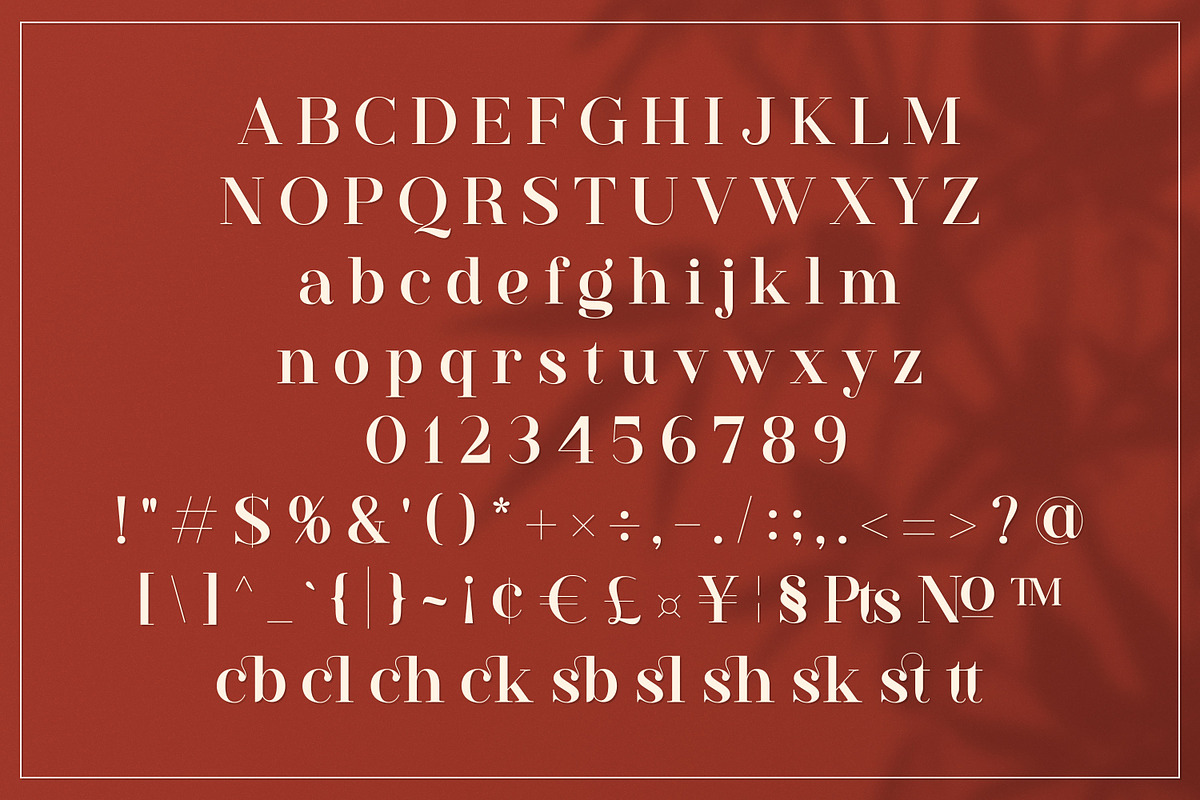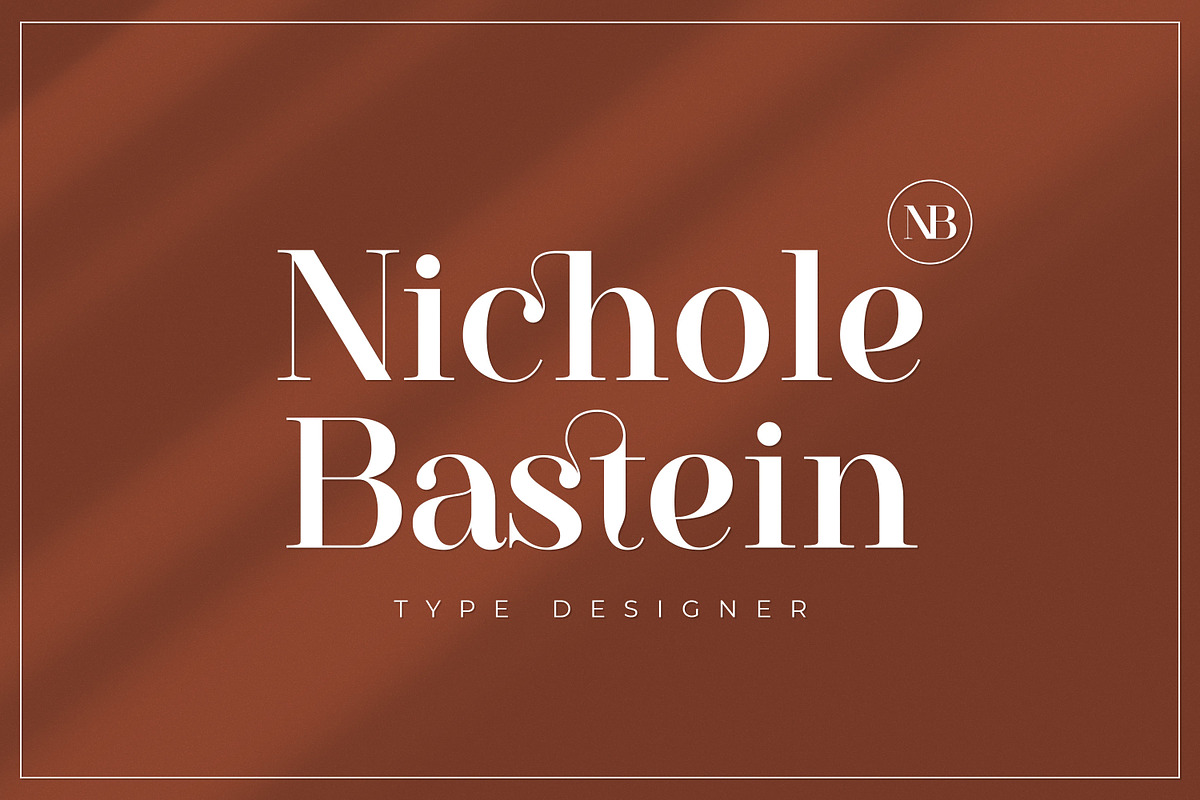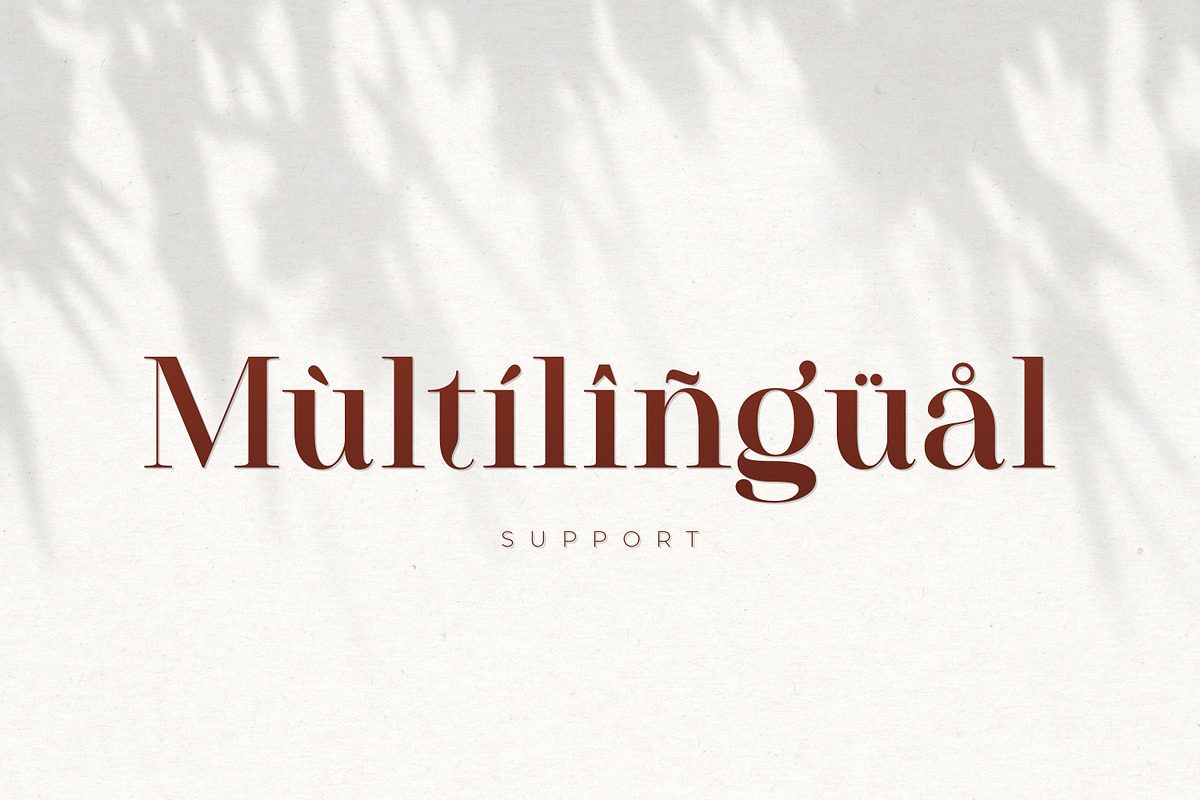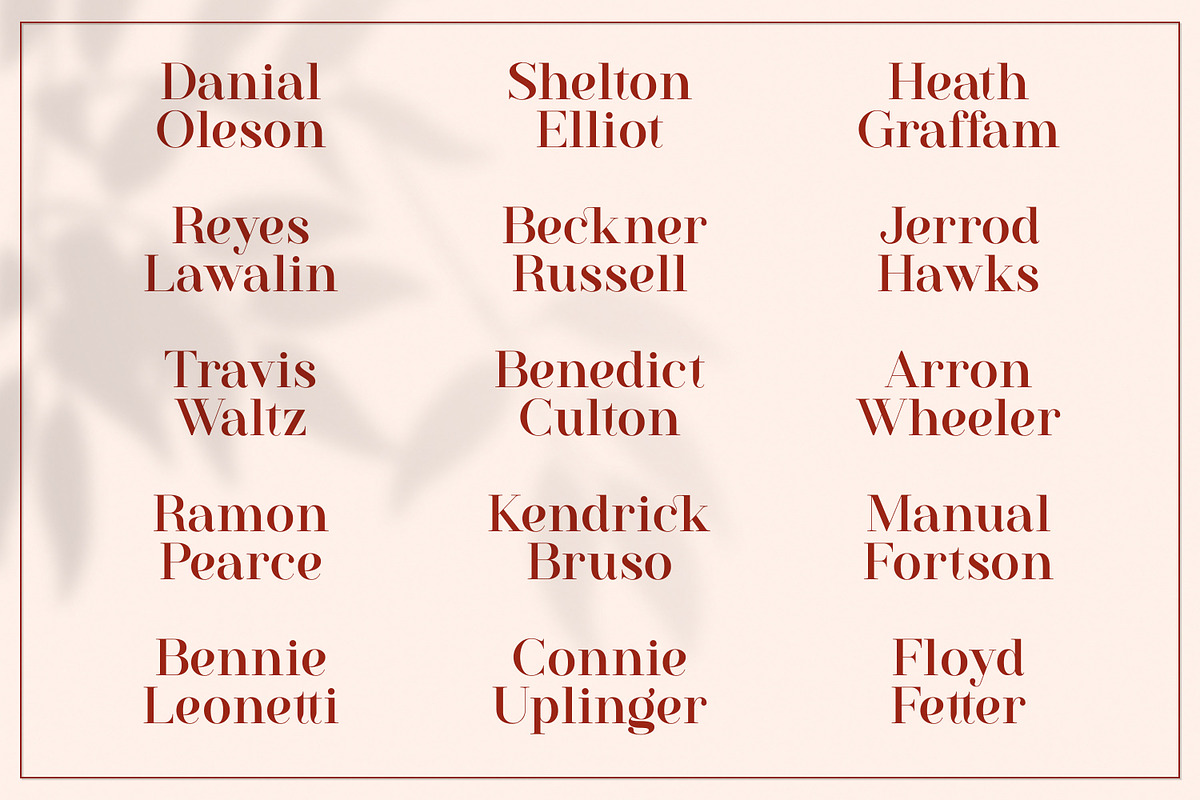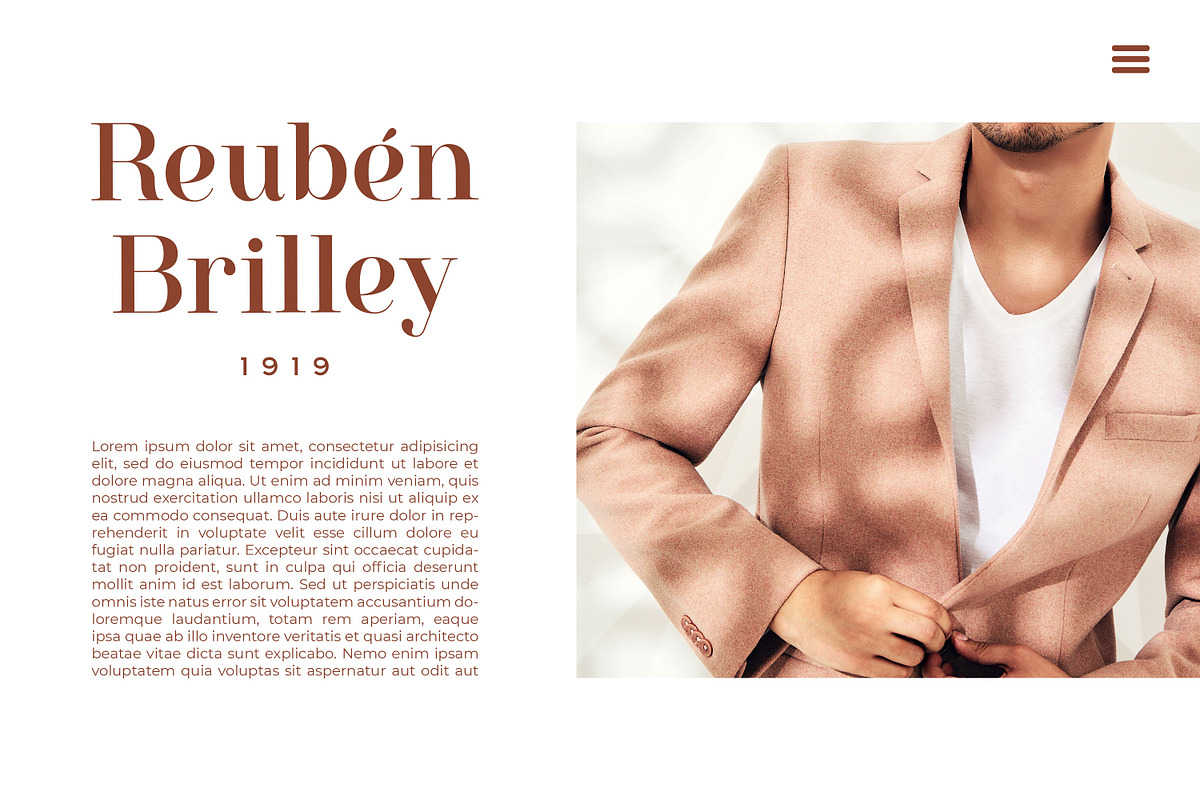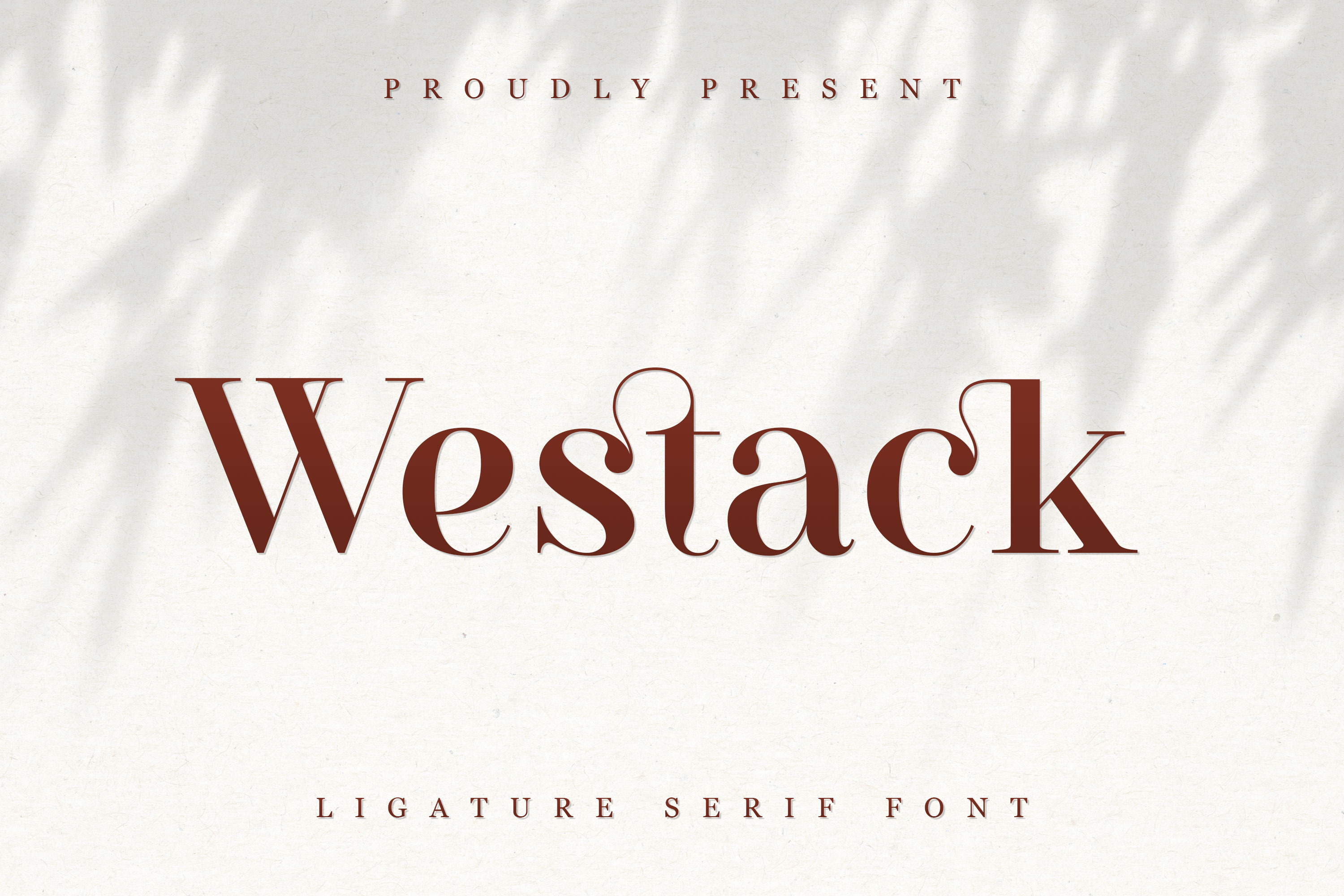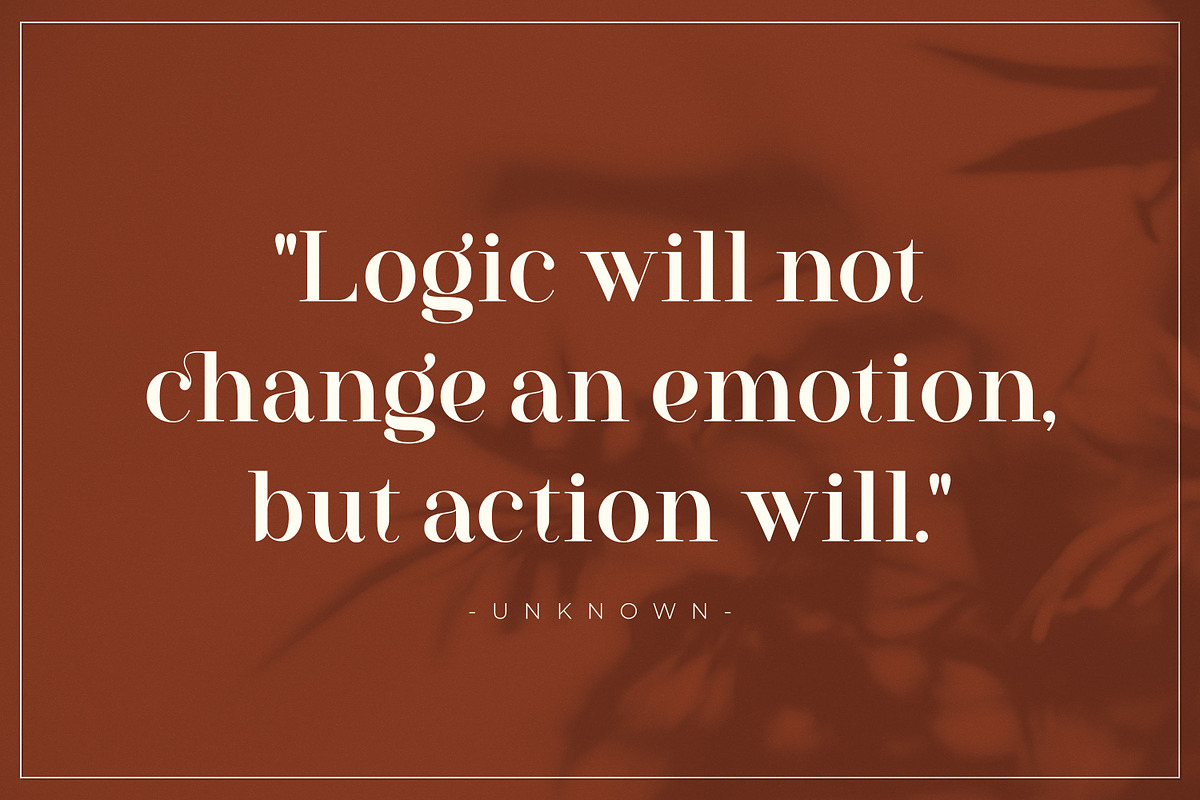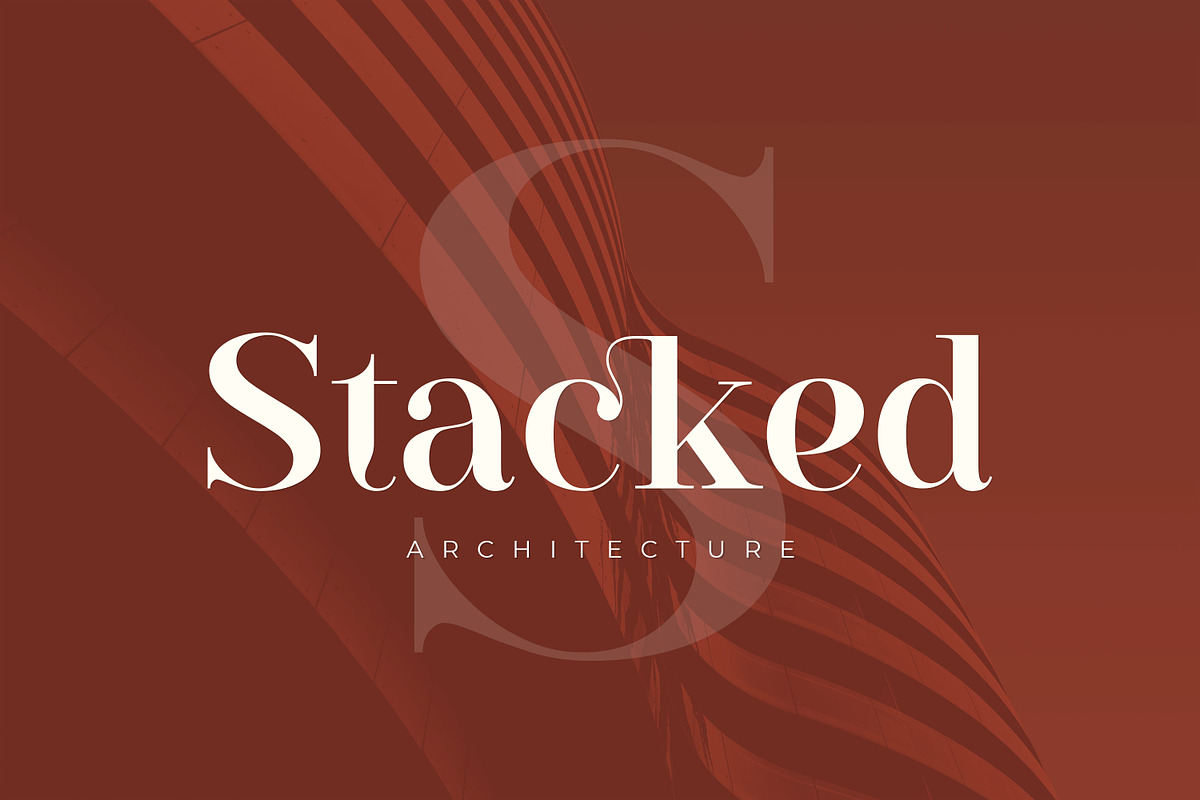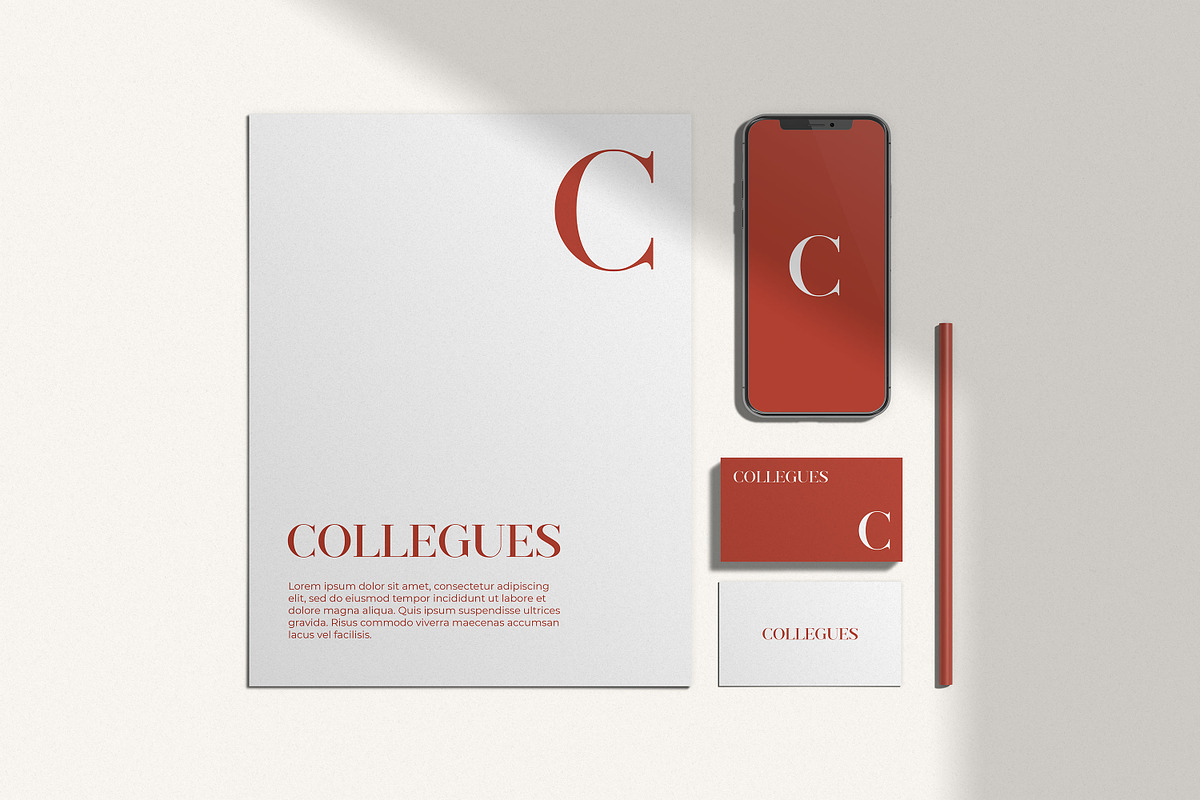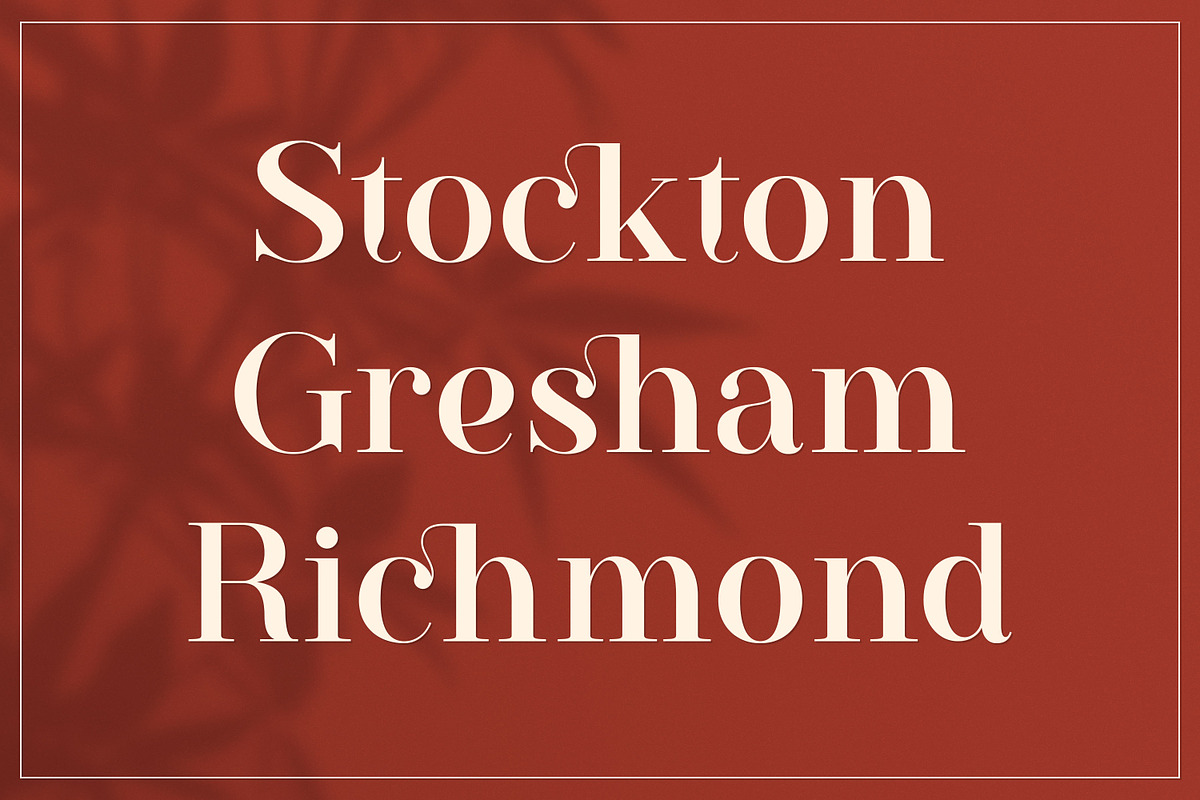
Westack - Ligature Serif Font
Introducing Westack – Modern Display Serif inspired by the famous minimalist logo, perfect for the purposes of designing templates, brochures, videos, advertising branding, logos and more.